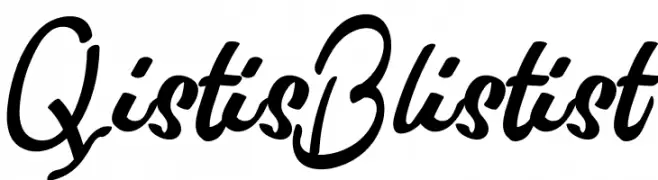
A playful, bold handwritten font with smooth, rounded edges and a casual style.
A bold, angular font with an energetic, hand-drawn style.
A dynamic, expressive script font with a handcrafted, rough texture.
An elegant and fluid script font with graceful, flowing lines and delicate curves.
A bold, brush-style font with dynamic strokes and a handmade feel.
A bold, brush-style font with expressive, hand-drawn strokes.
A playful, hand-drawn font with irregular strokes and a casual style.
A fluid, script-style font with elegant, flowing lines and a handwritten feel.
A fluid, cursive script font with an elegant, handwritten style.
A classic, elegant script font with flowing, cursive letterforms and medium contrast.